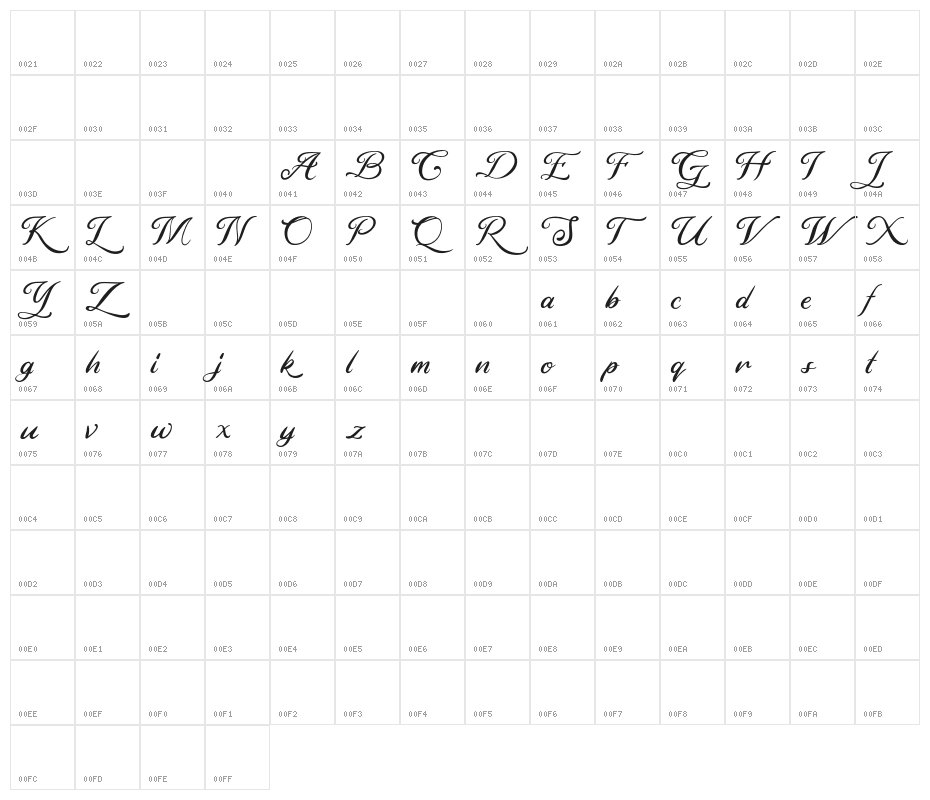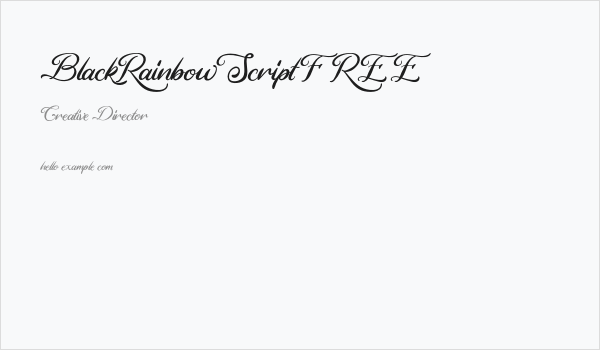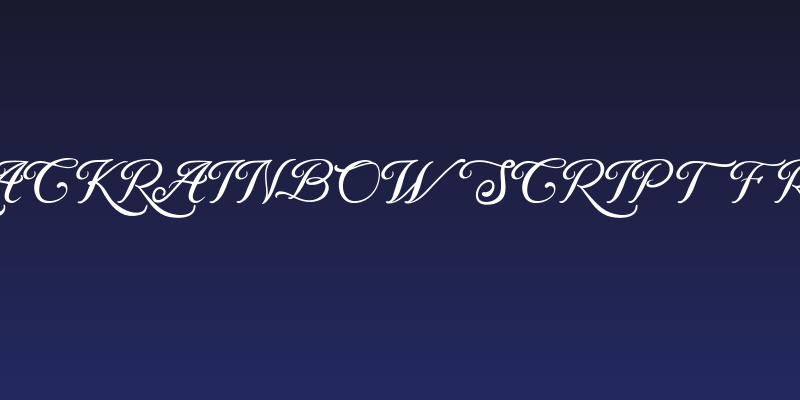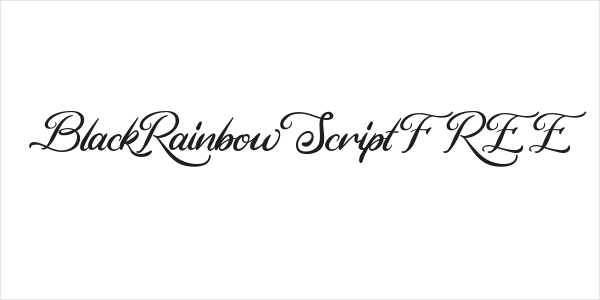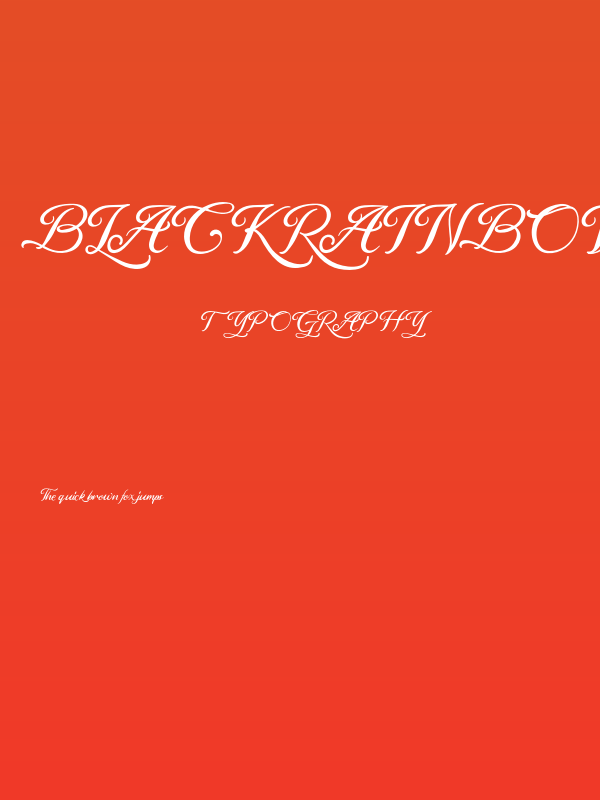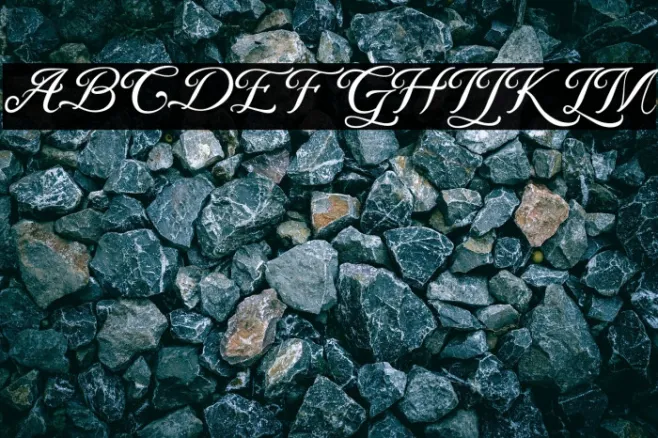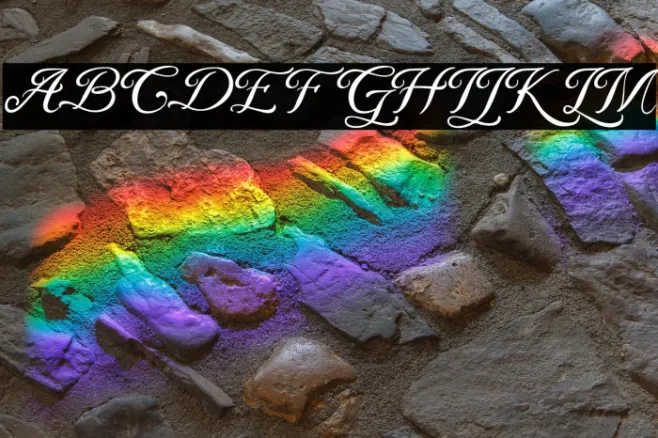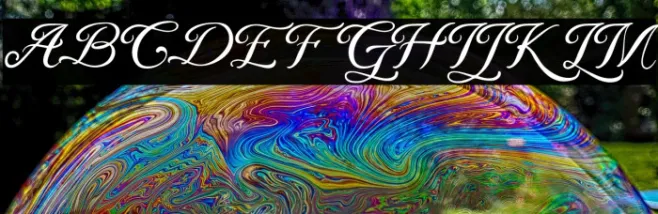
BlackRainbowScriptFREE Font
BlackRainbowScriptFREE Description
This elegant script font features a flowing, cursive style with intricate loops and swashes that give it a sophisticated and artistic appearance. The uppercase letters are particularly ornate, with flourishes that extend beyond the baseline and cap height, creating a sense of movement and grace. The lowercase letters maintain a consistent style, with smooth curves and a slight slant that enhances readability while preserving the decorative nature of the font. The characters are well-spaced, allowing each letter to stand out while maintaining a cohesive look. This font is ideal for projects that require a touch of elegance and creativity, such as wedding invitations, branding, and artistic designs.
| Font Family | Black Rainbow Script FREE |
| Use Case | Logos, Invitations, Artistic designs |
| Proposed Projects | Wedding invitations, branding, artistic designs, greeting cards. |